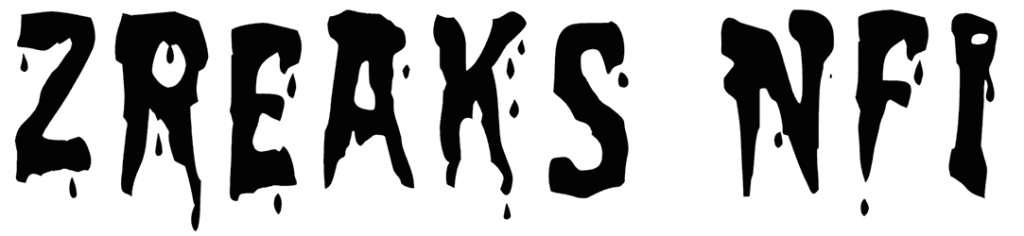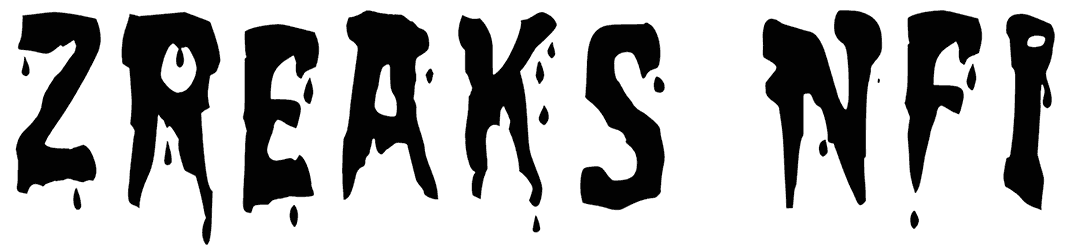
Zreaks NFI Font
Zreaks NFI is a horror font with an overall creepy vibe and weird, bloody characters. This font is missing lowercase letters, yet it still does an excellent job of frightening readers.
Branding, apparel, and posters, among other uses, may greatly benefit from the elegant and engaging visual impression that this vampire font provides. Let’s check out our online font library and see how many options are comparable to this one right now.